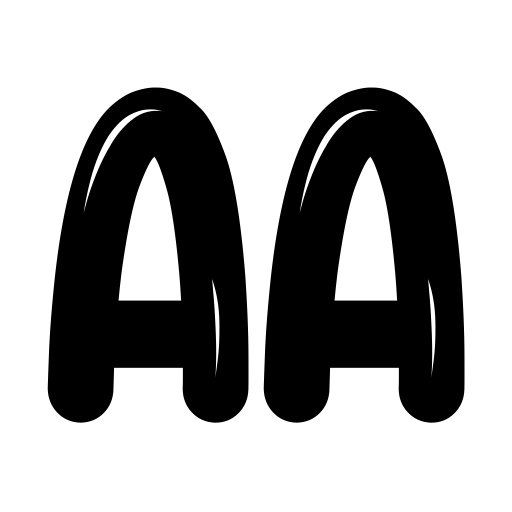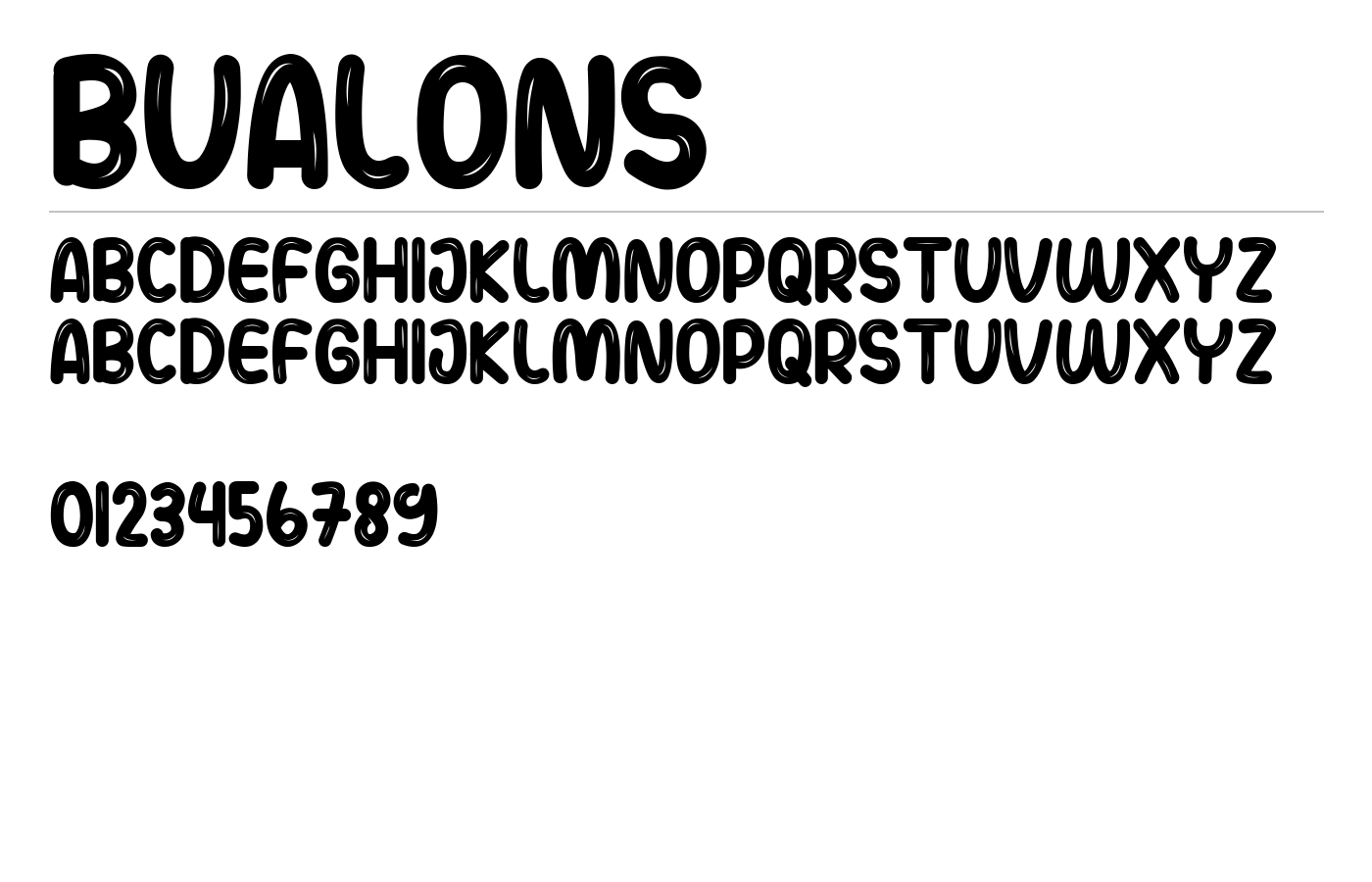
Bualons is a playful and bold sans serif font with rounded, slightly condensed letterforms that give it a friendly and approachable vibe. Its high x-height and moderate stroke contrast make it highly legible and perfect for lively headlines, children’s products, or casual branding where a fun and informal tone is desired. This font works well in environments that benefit from a cheerful, energetic look without sacrificing clarity.
Bualons Font
About Bualons Font